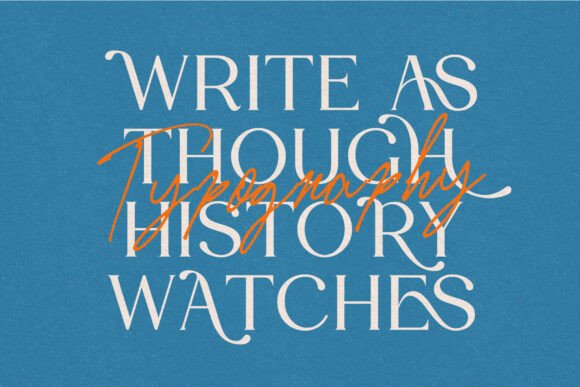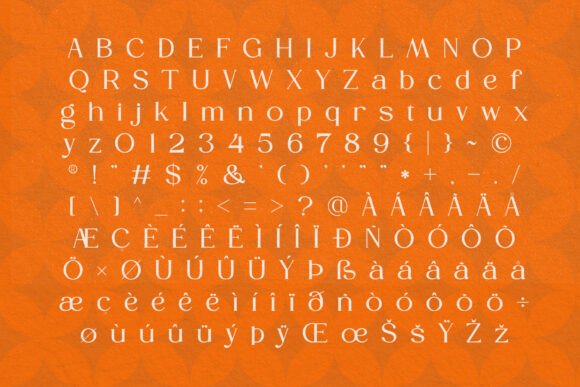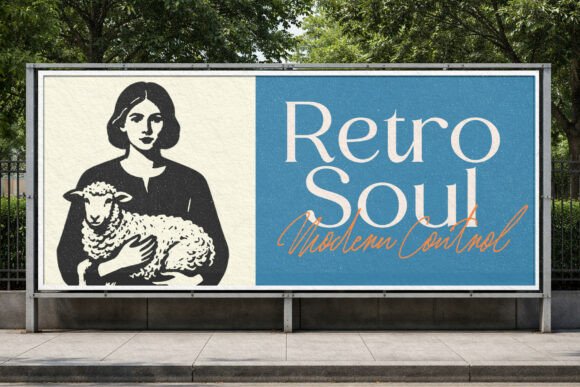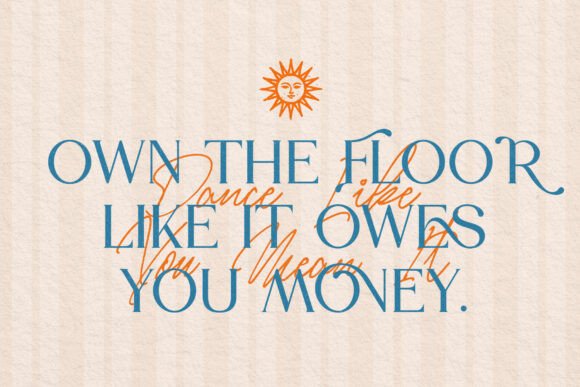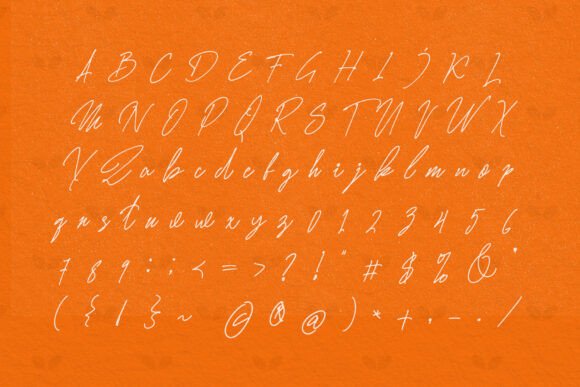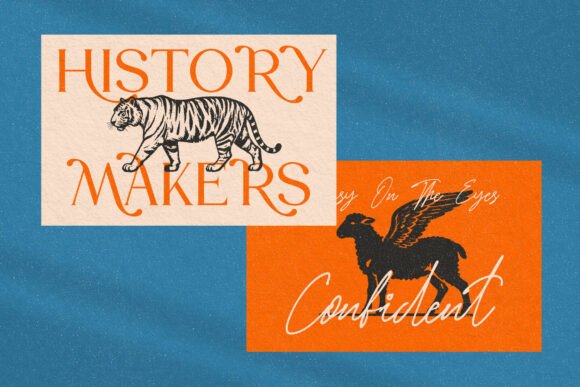
Introduction to Honera Font
Have you ever found yourself scrolling through social media, mesmerized by a beautifully crafted brand identity that seems to transport you to a different era? For designers, those moments are like gold – a spark of inspiration that can elevate our creative projects to the next level. And that’s exactly what the Honera Font offers – a harmonious blend of vintage charm and modern sophistication that can elevate any design to new heights.
As a designer, you’re always on the lookout for high-quality design resources that can help you create stunning visuals. The Honera Font duo, with its sophisticated serif and flowing script, is a game-changer. Whether you’re working on an equestrian branding project or a heritage-inspired product packaging design, this font is sure to bring a touch of authenticity and elegance to your work.
Key Features of Honera Font
- High-quality design resource ideal for creative projects, offering a professional look and feel.
- Supports a range of languages, including Latin and Cyrillic, making it a suitable choice for global creative projects.
- Unique characteristics include a modern and elegant aesthetic, making it an excellent choice for branding and typography projects.
Honest Review: Honera Font
As a designer, I’m always on the lookout for high-quality design resources that can elevate my creative projects. Recently, I stumbled upon the Honera Font, and I’m excited to share my honest review with you.
- ✨ High-quality typography: The Honera Font boasts beautiful, elegant letterforms that are perfect for a variety of design projects.
- ✨ Versatile: This font is suitable for both print and digital projects, making it a great addition to my design arsenal.
- ⚠️ Limited font styles: The Honera Font only comes in a single weight, which may not be suitable for projects that require multiple font weights.
Overall, I’m impressed with the Honera Font’s quality and versatility. While it may have some limitations, it’s a great addition to any designer’s collection. If you’re looking for a high-quality, free font for your next creative project, the Honera Font is definitely worth checking out.
Tips for Getting the Most Out of Honera Font
Experiment with different font sizes and styles to create a visually appealing design. Use Honera Font in combination with other design elements to create a cohesive look. Don’t forget to adjust the font color to match your design theme.
Honera Font is perfect for creating visually appealing designs for social media, presentations, and marketing materials. Its high-quality design resource makes it an ideal choice for creative projects that require a professional touch.